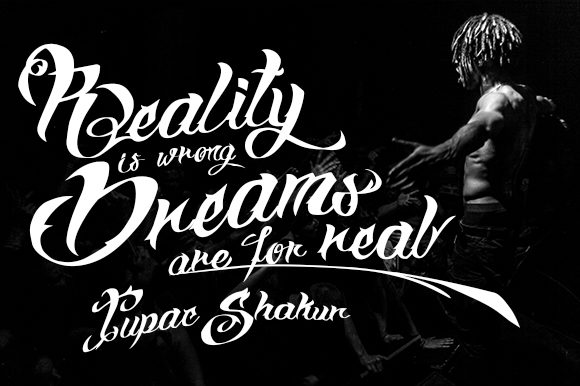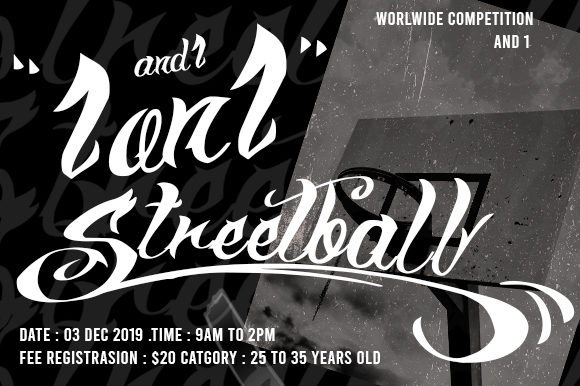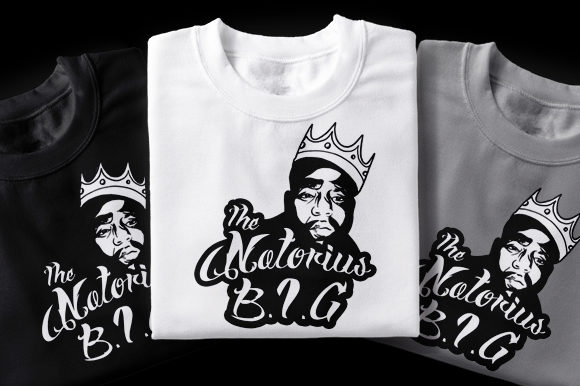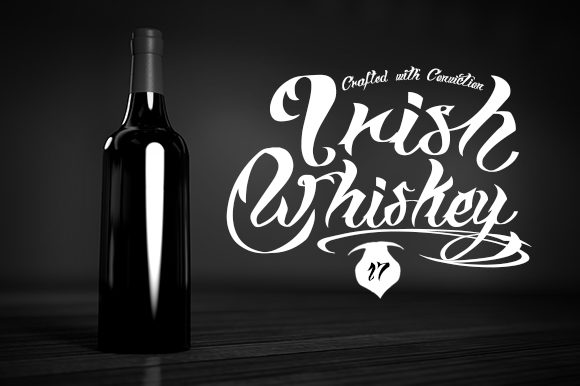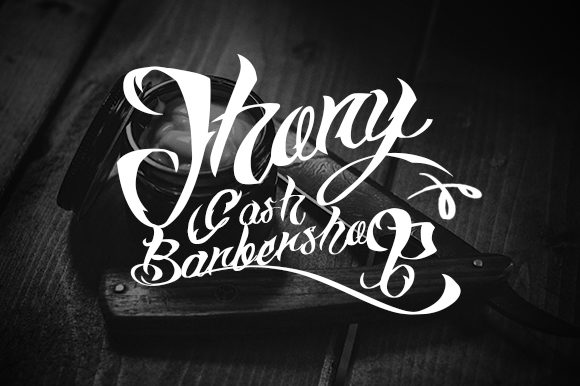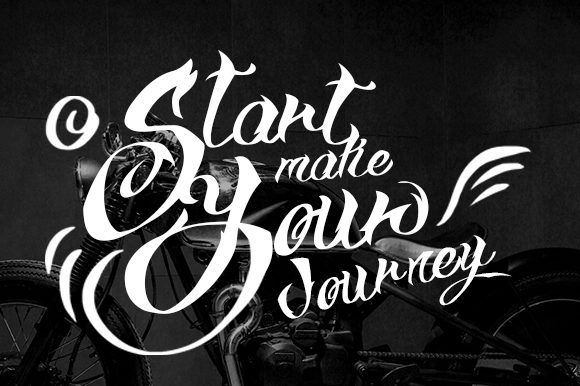
Introduction to Seatlers Font
Seatlers is a unique handwritten font.
It features a strong and vintage feel It will elevate a wide range of design projects to the highest level, be it branding, headings, wedding designs, invitations, signatures, logos, labels, and much more.
Key Features of Seatlers Font